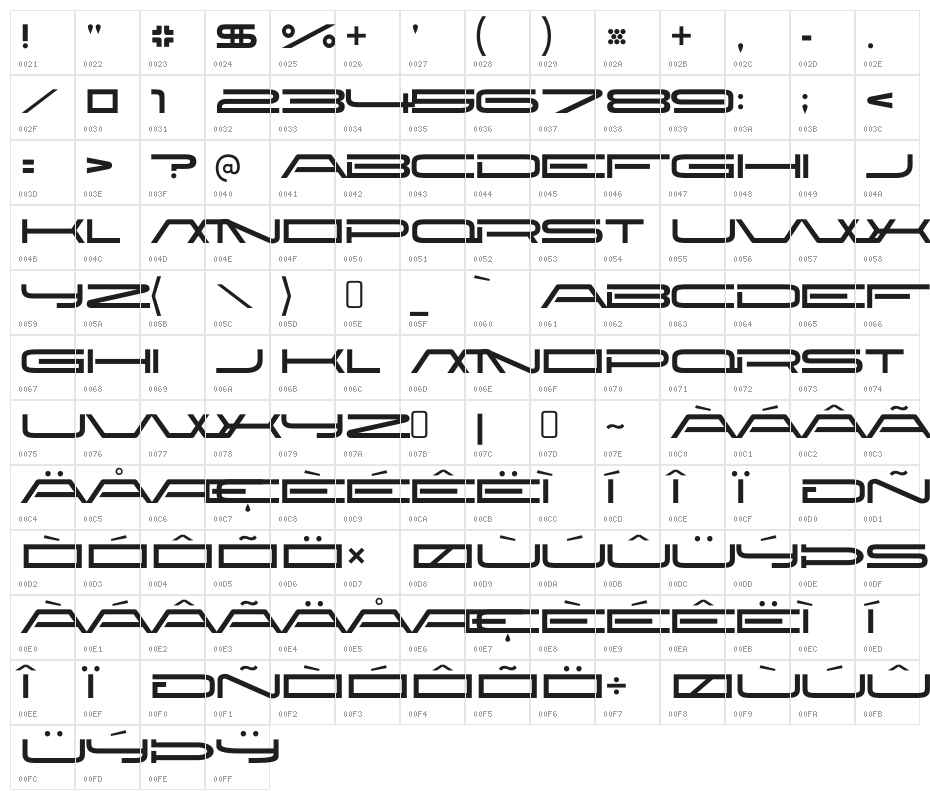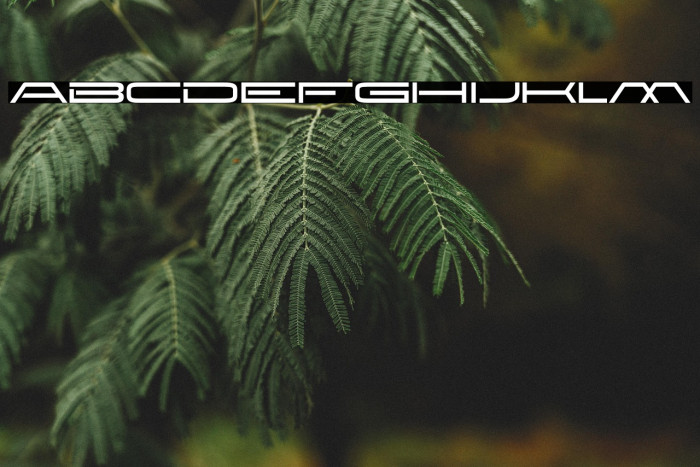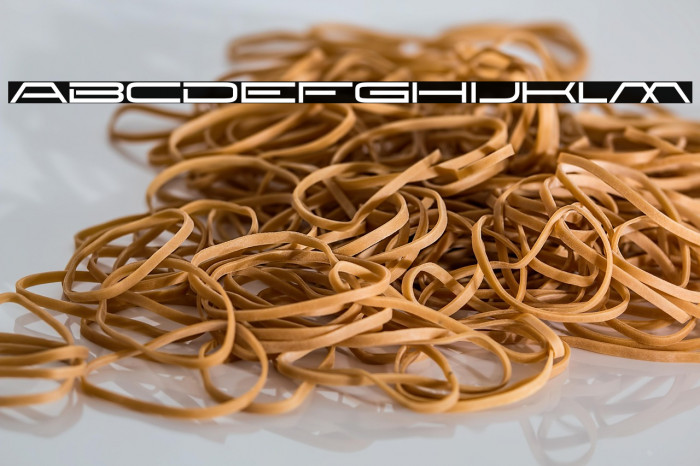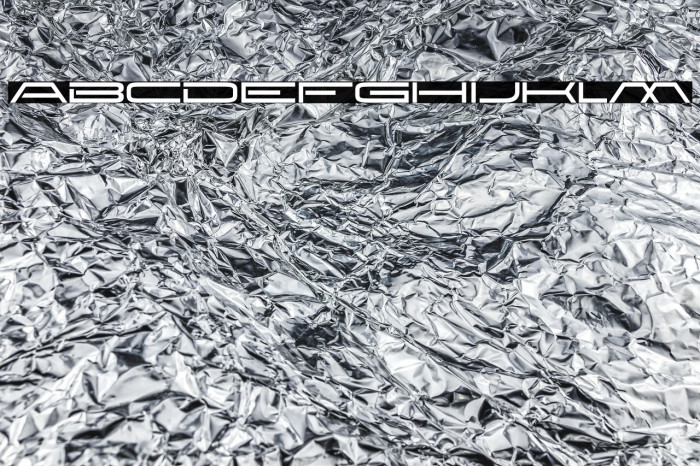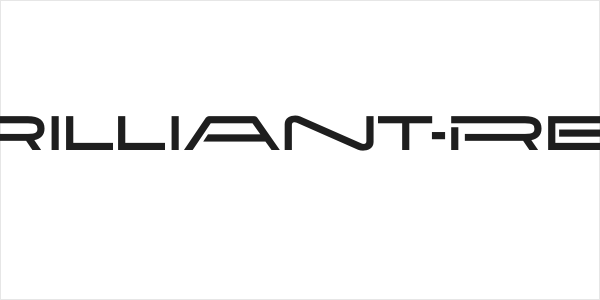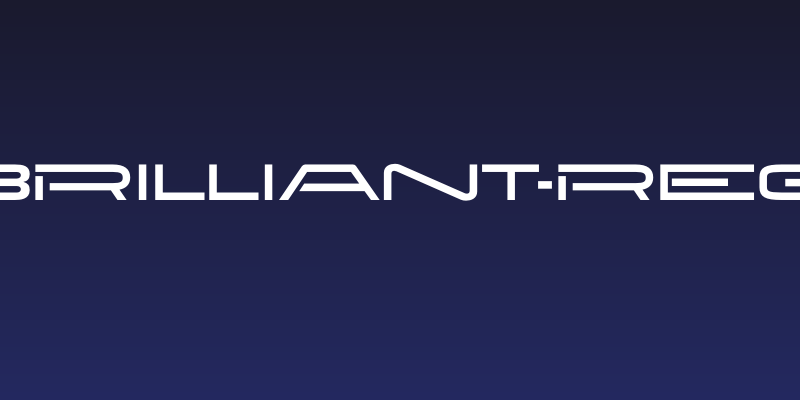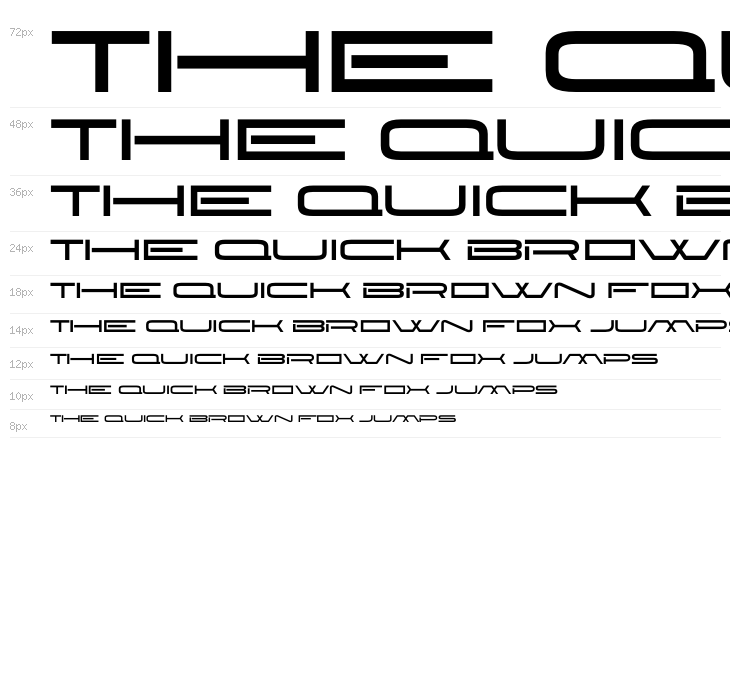
NewBrilliant-Regular Font
NewBrilliant-Regular Description
This font features a futuristic and sleek design with a geometric structure. The characters are crafted with sharp angles and clean lines, giving it a modern and tech-inspired appearance. Uppercase and lowercase letters maintain a consistent style, with a focus on symmetry and balance. The numerals are bold and distinct, complementing the overall aesthetic. Special characters are uniquely styled to match the font's contemporary theme, making it suitable for digital and print media that require a cutting-edge look.
| Proposed Projects | Ideal for technology branding, sci-fi movie posters, video game titles, and modern web design. |